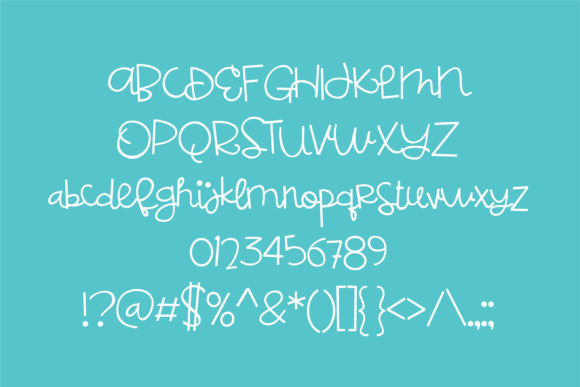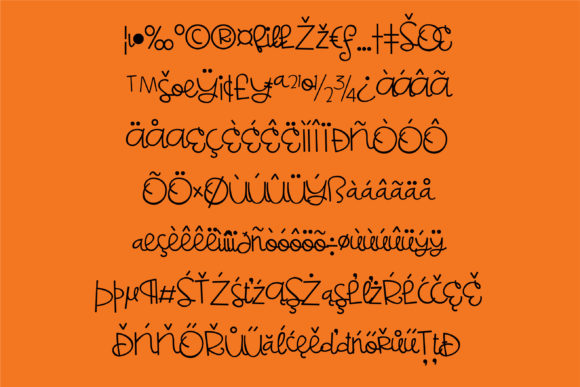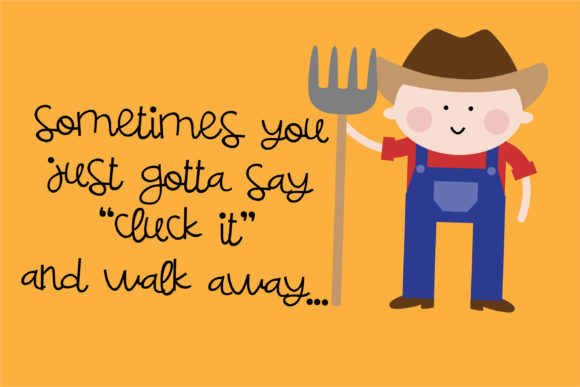
Jack Script Font
About Jack Script Font
Jack Script is a whimsical hand-crafted script that has a fun and bouncy baseline. Great for a variety of creative projects!